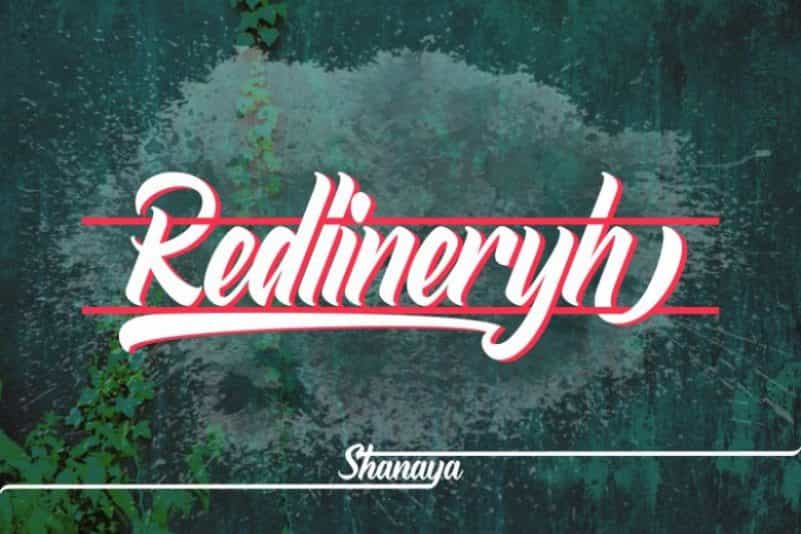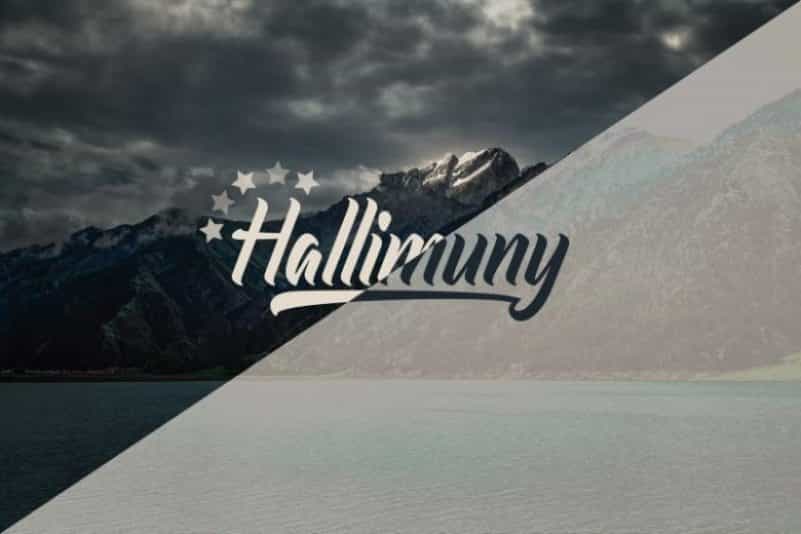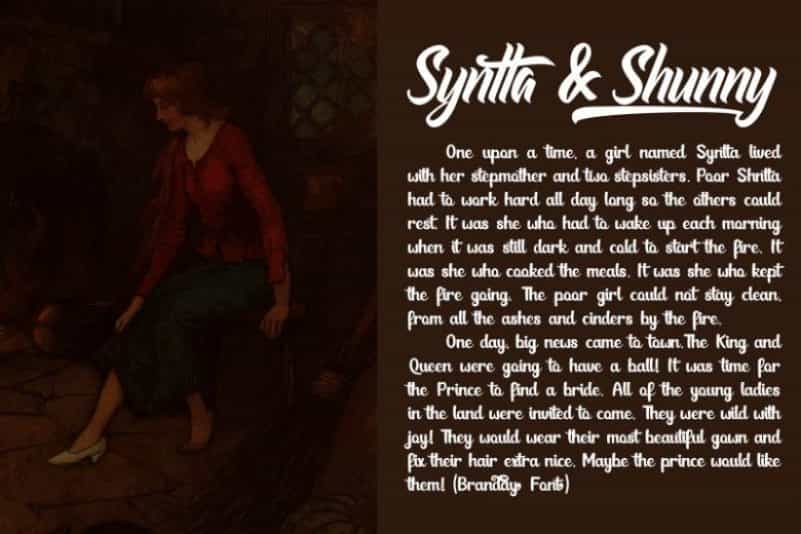
Introduce the Redlineryh Script Font, This font was designed to make you design the brand of yours own or your client, and you also can use it for designing all of the graphic stuff such as badge, sign, packaging, headline, T-shirt/apparel, Poster, etc.